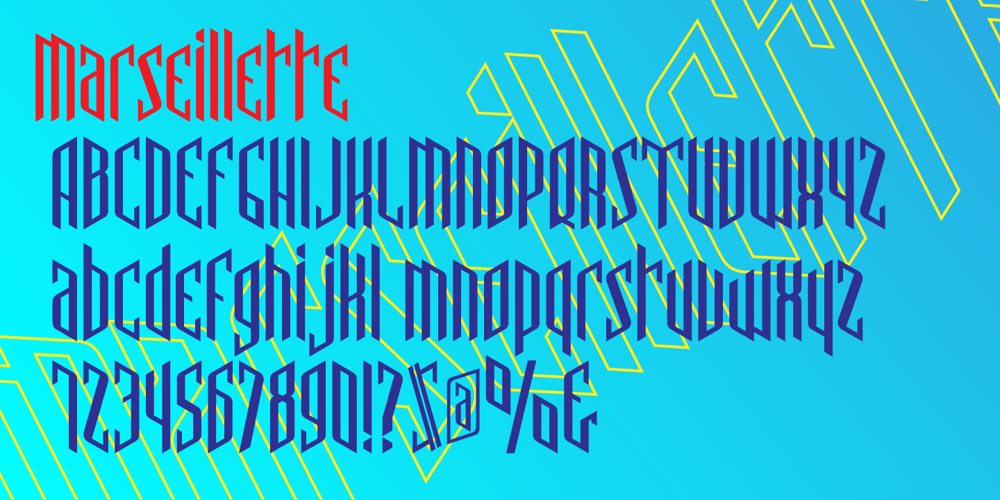
Marseillette NB Font Family was designed by George E. Thompson and published by No Bodoni. Marseillette NB contains 1 styles and family package options. These four typefaces, Berlinette NB, Lyonette NB, Marseillette NB and Parisette NB, were designed from the same basic shape, a fanciful geometric form that avoids strict horizontals and uses more offbeat triangular shapes. Marseillette is the nasty one, with sharp hook terminations that require careful use. Don�t slip and accidentally stick one in your hand � it will hurt pretty bad and make you blubber like a baby. It�s good for surreal warning signs on dark, forbidding docks where gooey monsters live.